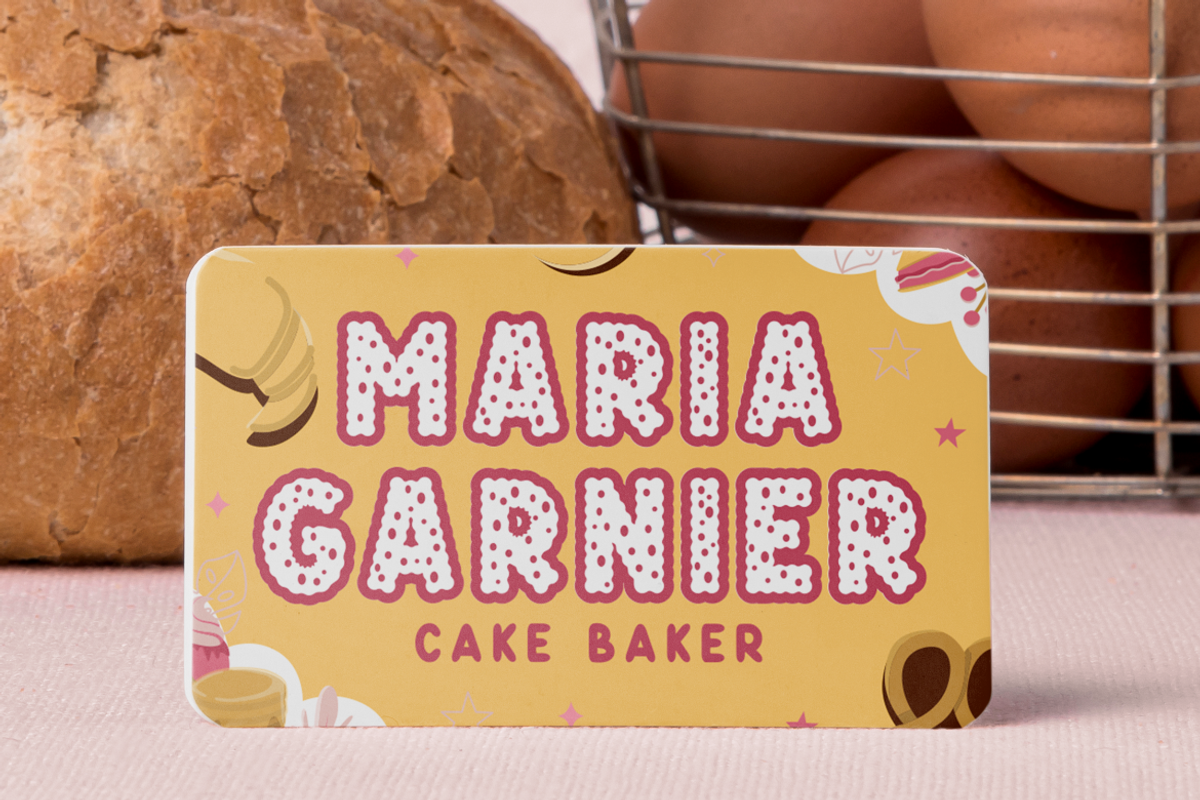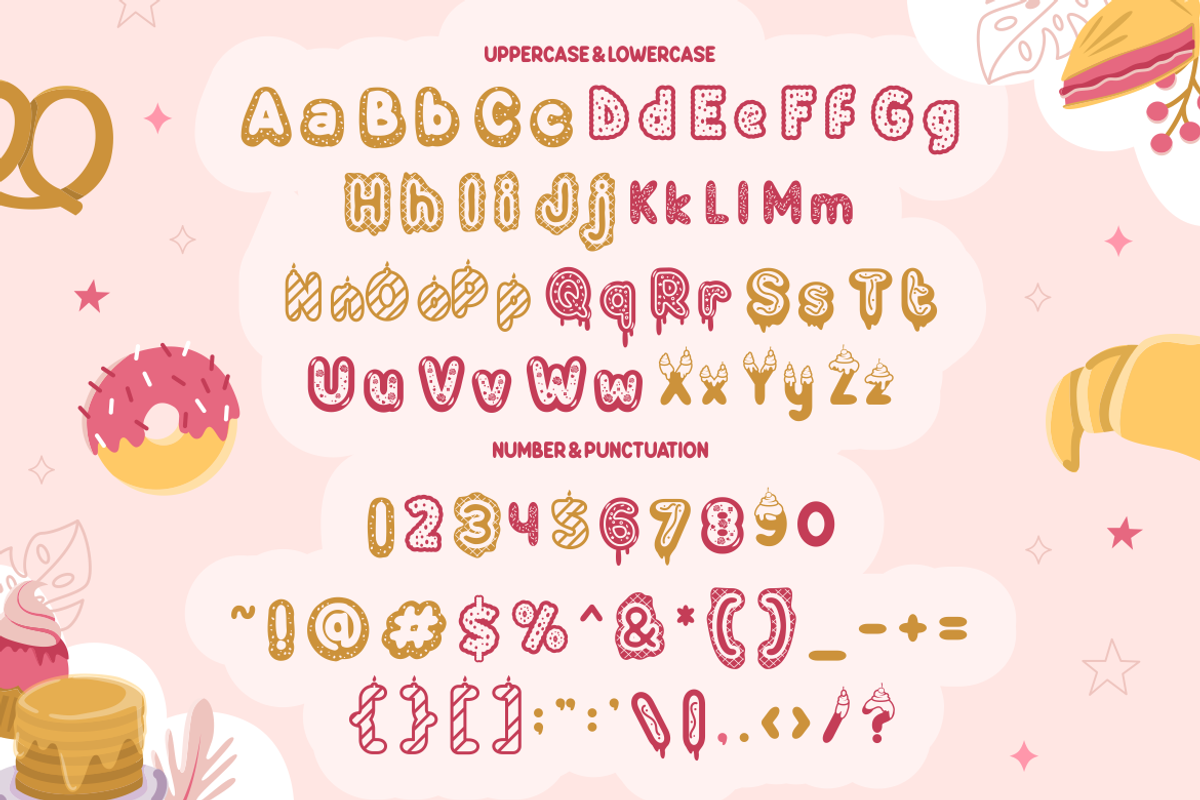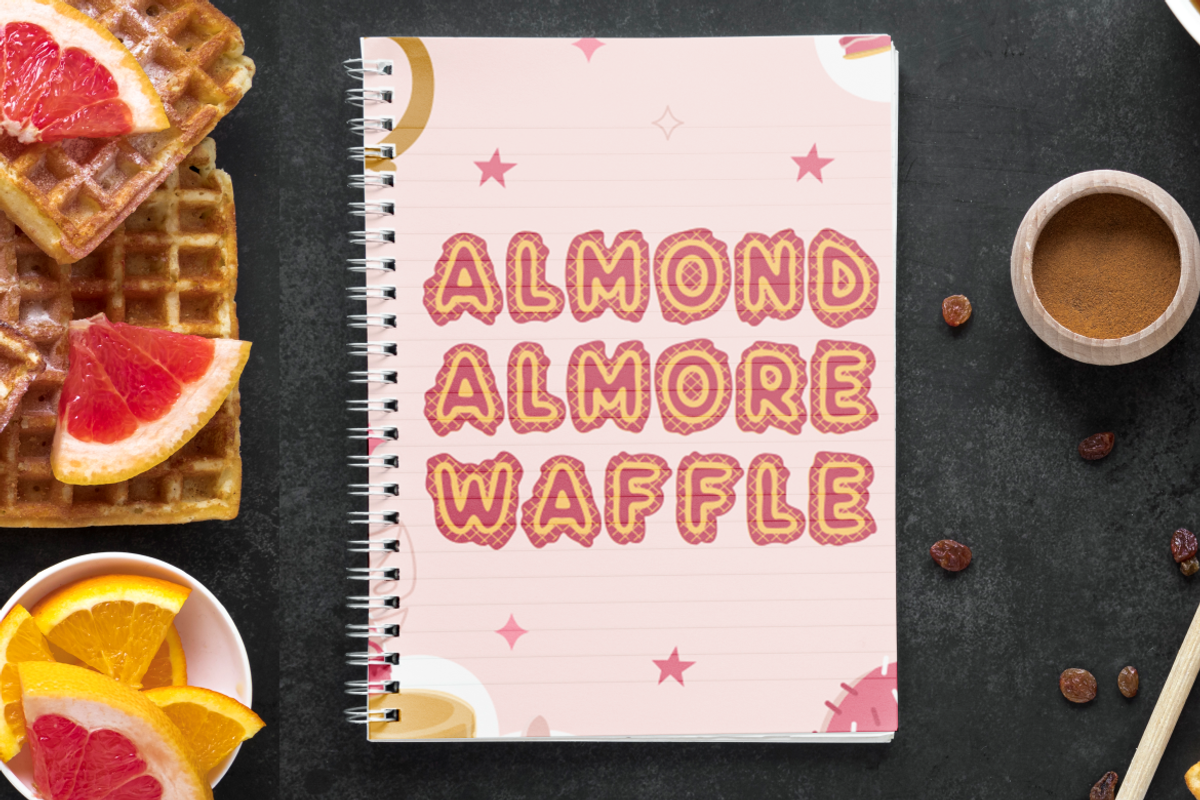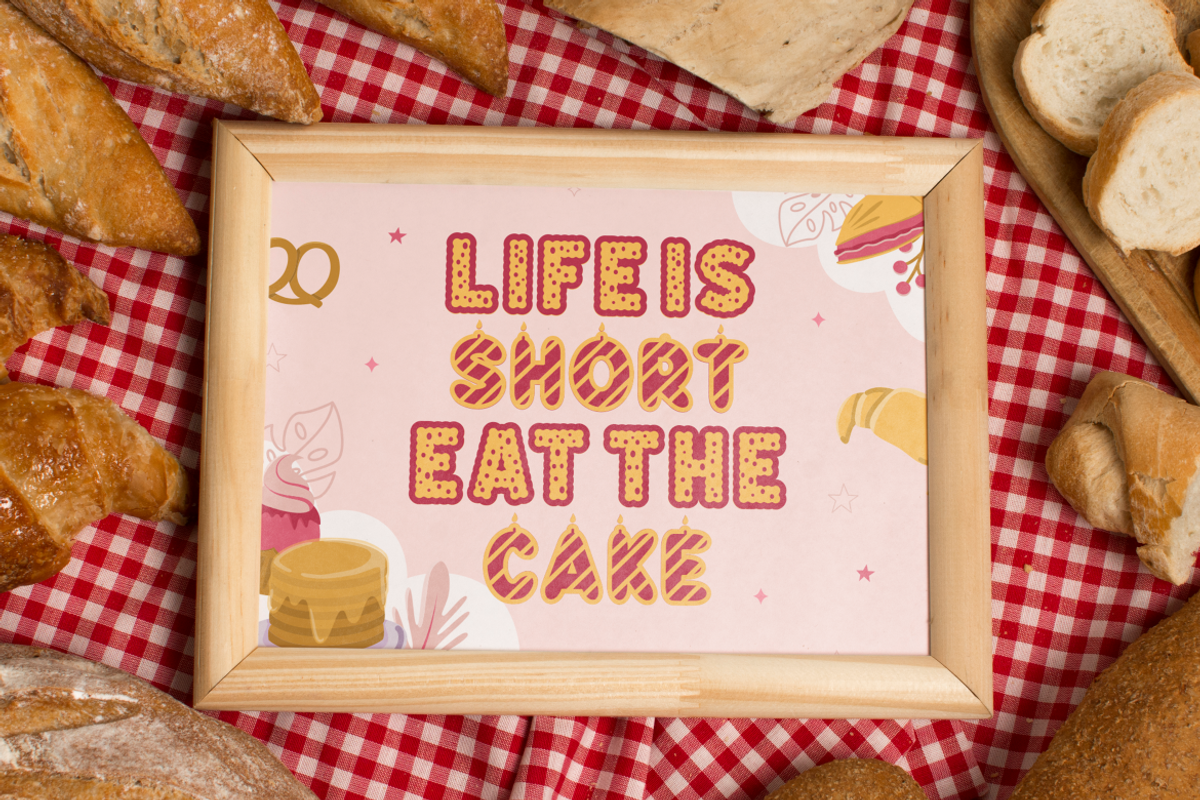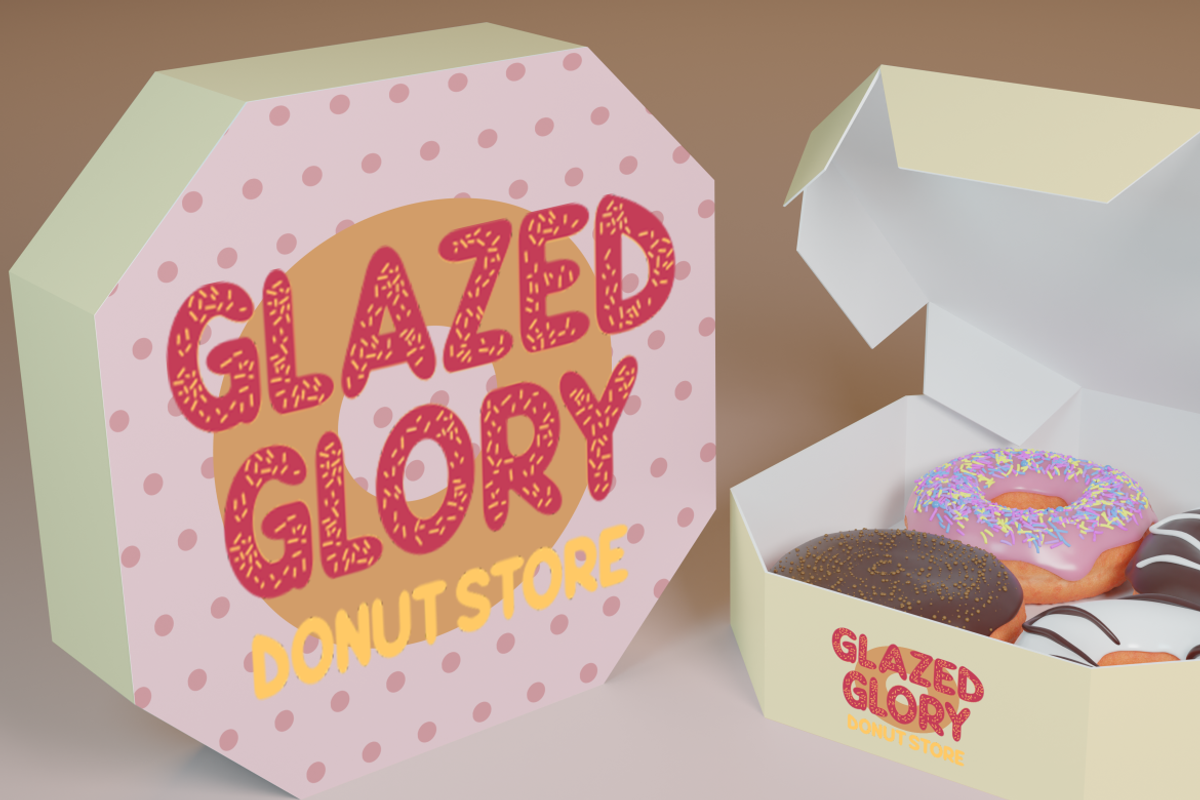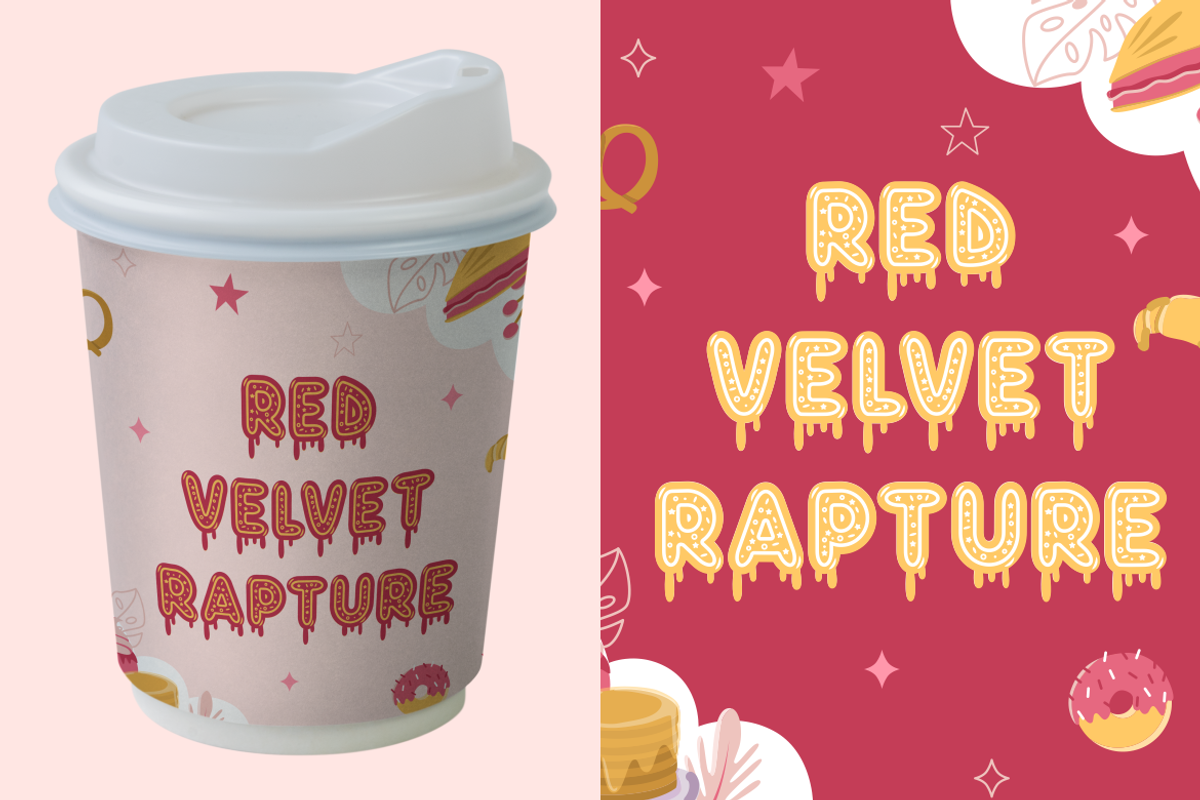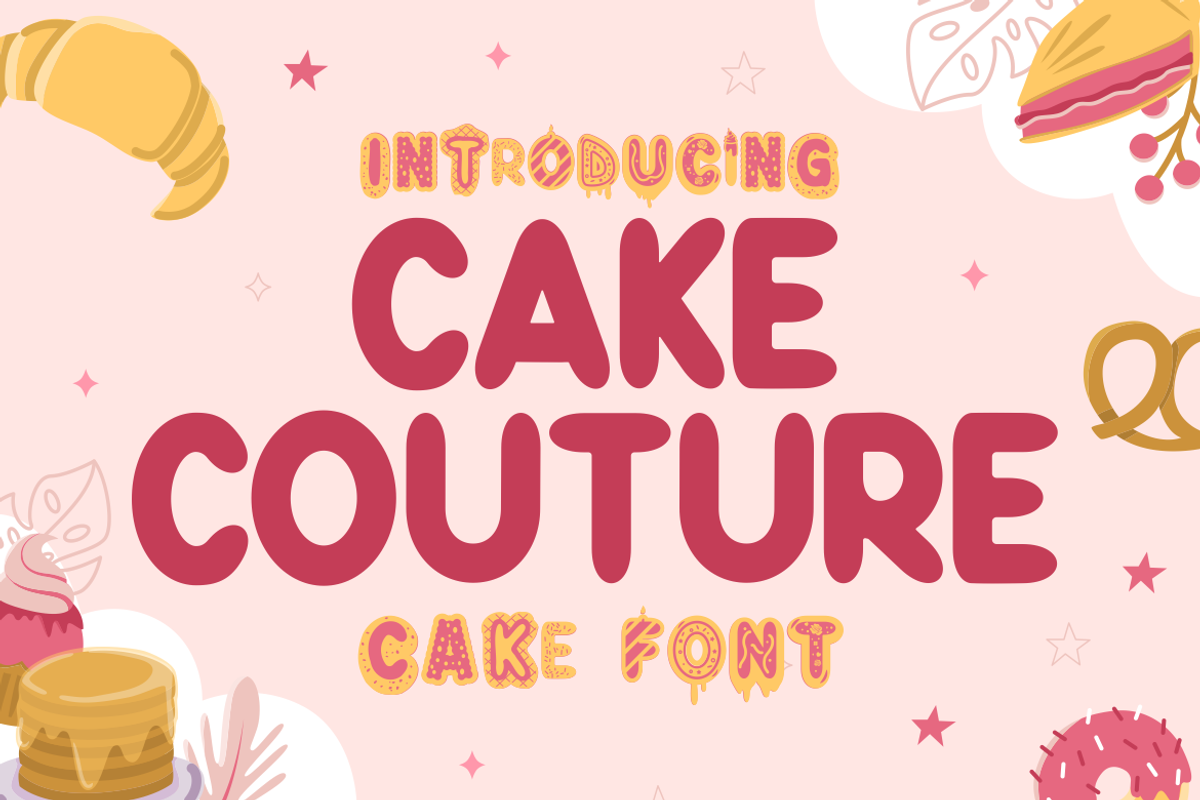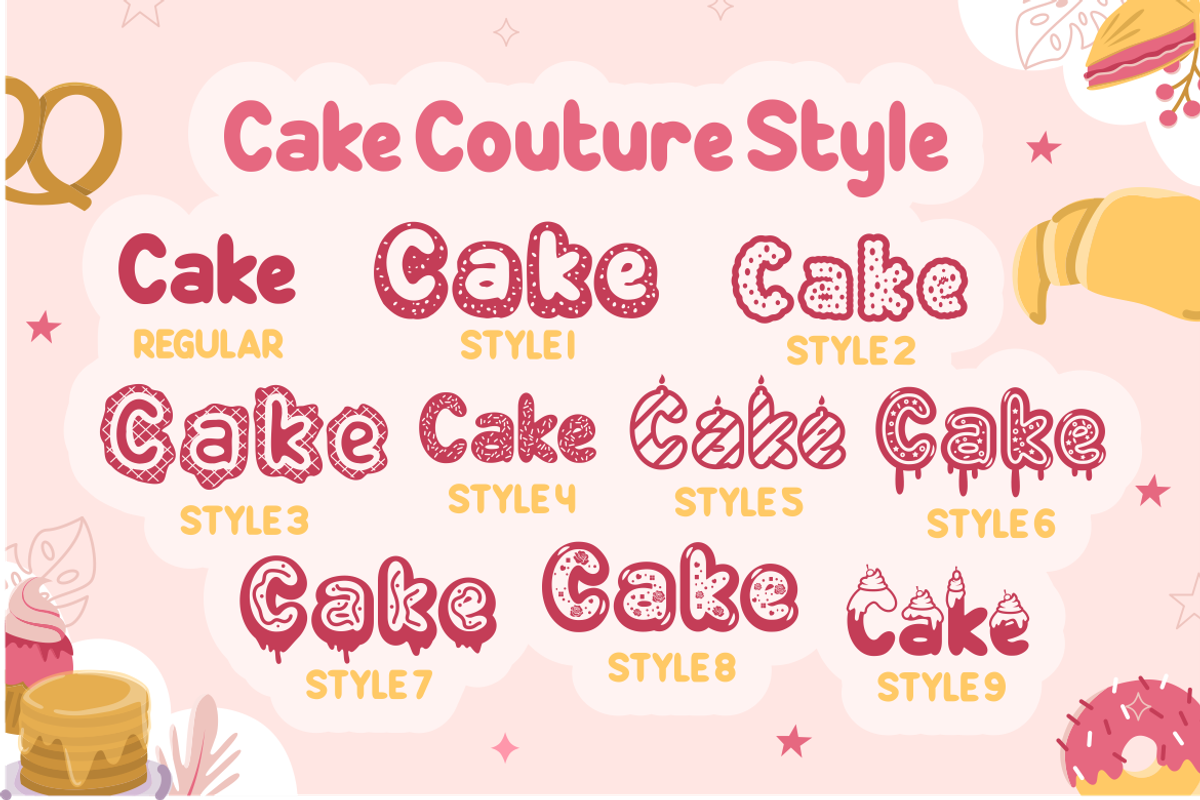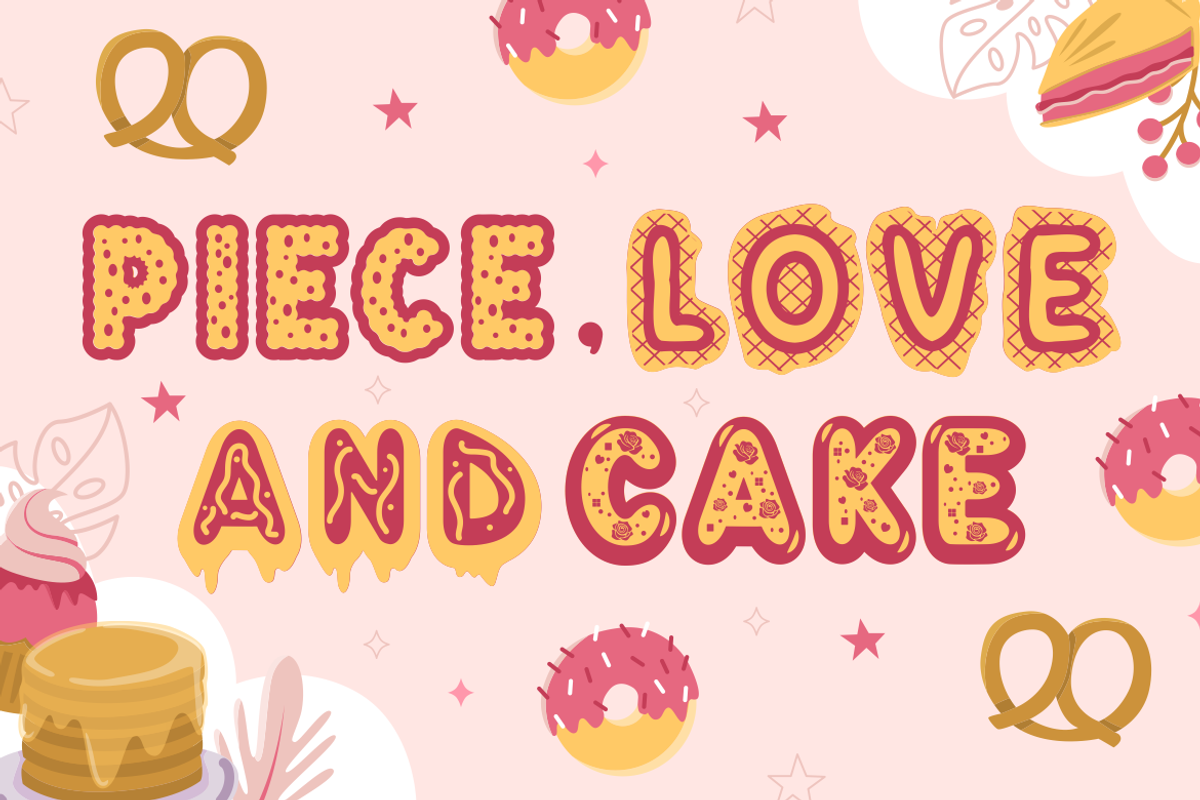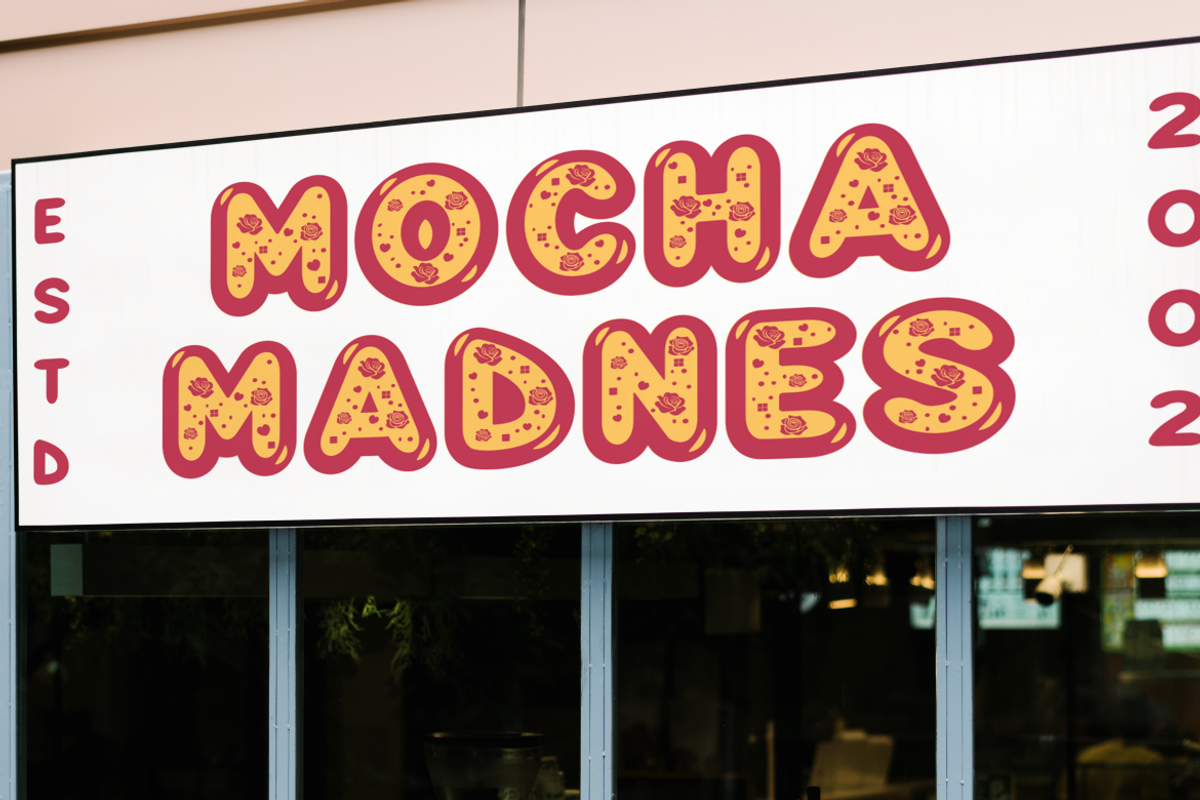
Cake Couture - Cake Font
Introducing Cake Couture - Cake Font, the sweetest addition to your design pantry! This font is a delightful concoction of whimsy and elegance, baked to perfection for designers who want to add a sprinkle of joy to their creations. With its playful curves and frosted flourishes, Cake Couture is like a sugar rush for your typography needs. Whether you’re crafting a logo for a boutique bakery, stirring up a charming branding package, or icing a delectable invitation card, this font will serve up the perfect blend of fun and professionalism.
Cake Couture isn’t just a font; it’s a celebration of creativity. Its display style is garnished with decorative elements that evoke the art of cake and craft, making it a piece of art in itself. Ideal for packaging, posters, book titles, and any project that calls for a touch of sweetness, this font will make your designs as irresistible as a freshly baked cake. So why settle for bland when you can have a font that’s as rich and flavorful as the desserts it’s inspired by? Let Cake Couture be the cherry on top of your design sundae!